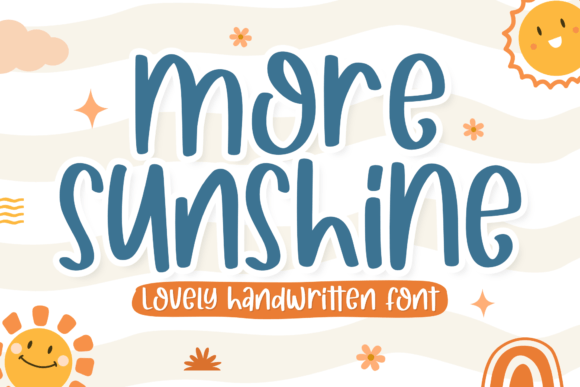
Welcome to the world of More Sunshine Font, a charming and playful handwritten font family that will add a dash of cheerfulness to your designs. Crafted with precision and passion by Holydie Studio, More Sunshine is the perfect font for those seeking a touch of whimsy and originality in their projects.
Immerse yourself in the delightful world of More Sunshine, a font family that exudes warmth and happiness with every letter. Its playful curves and bouncy strokes bring a sense of joy and vibrancy to your designs, making them stand out from the ordinary.
With More Sunshine, you can effortlessly create designs that resonate with your audience. Whether you're working on a personal project, a professional presentation, or an eye-catching social media post, this font family will add a touch of magic that captures attention and leaves a lasting impression.
More Sunshine is a versatile font family that lends itself seamlessly to a wide range of design projects. From crafting stunning logos and branding materials to creating captivating invitations and greeting cards, More Sunshine adapts effortlessly to your creative vision. Its charming personality adds a touch of playfulness to resumes and presentations, while its readability ensures your messages are conveyed with clarity and impact.
Let More Sunshine be your creative companion as you embark on a journey of design exploration. Its user-friendly nature makes it accessible to designers of all skill levels, allowing you to unleash your creativity and bring your ideas to life.
With More Sunshine, the possibilities are endless. Transform your designs into works of art, evoke emotions, and create connections with your audience. Let the cheerful spirit of More Sunshine shine through in every project you undertake.